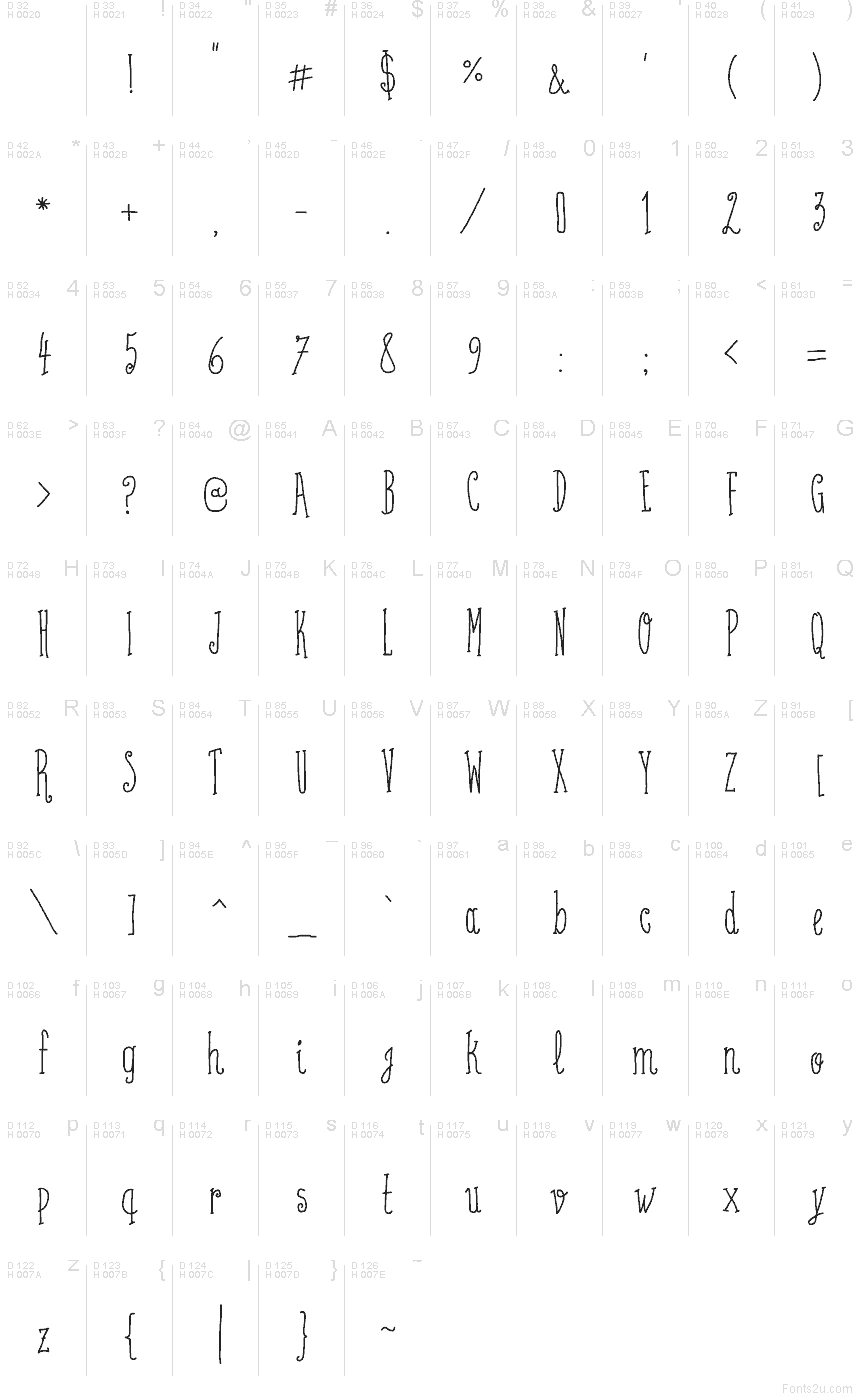
Coffee Written Regular
Coffee Written by Galdino Otten is a free handwritten font defined by tall upright strokes and loose looped turns that give the lettering a relaxed, notebook rhythm. The uneven rise and fall keeps it informal, while the repeated curled endings stop it from feeling like a plain marker script.
It makes sense on cafe menus, packaging labels, greeting cards, quote graphics, and social media headers where a casual personal tone matters more than polish. Those stretched forms and soft loops also give short titles a friendly homemade pull, especially in food branding or craft-themed promo pieces.